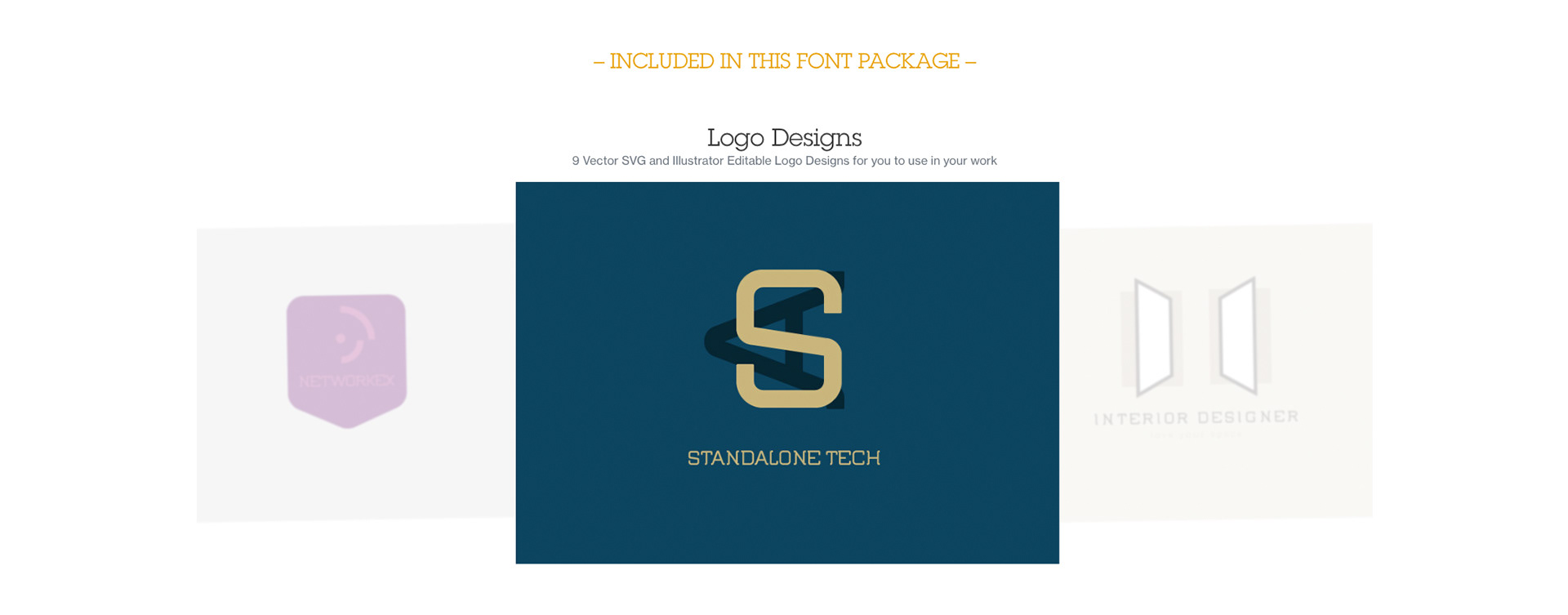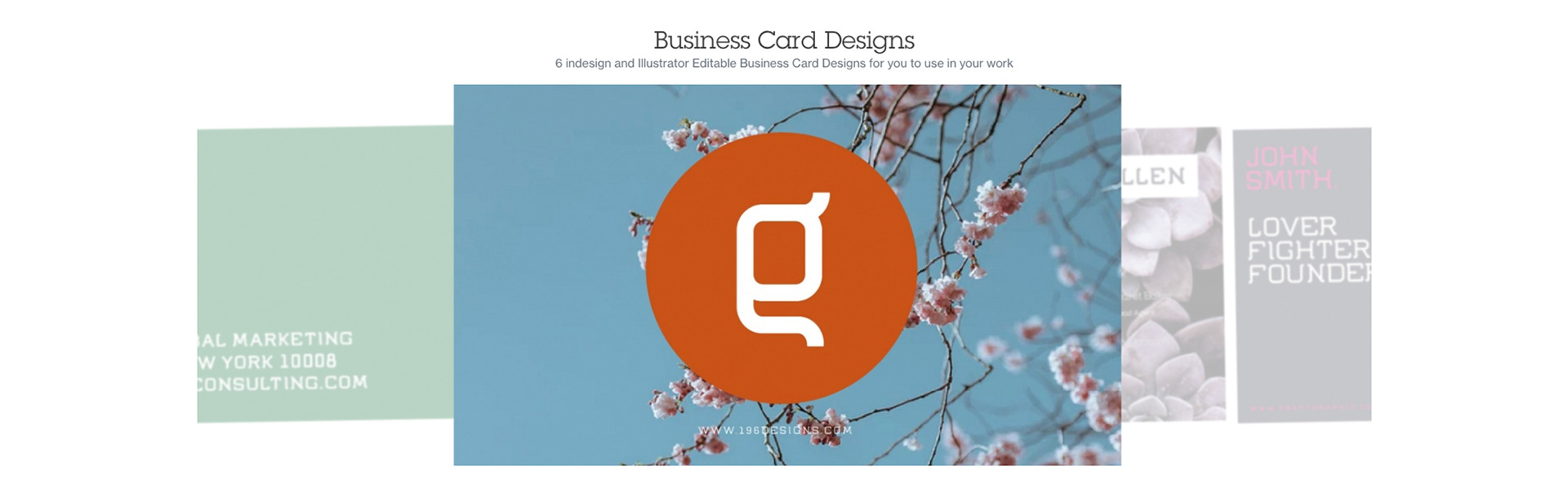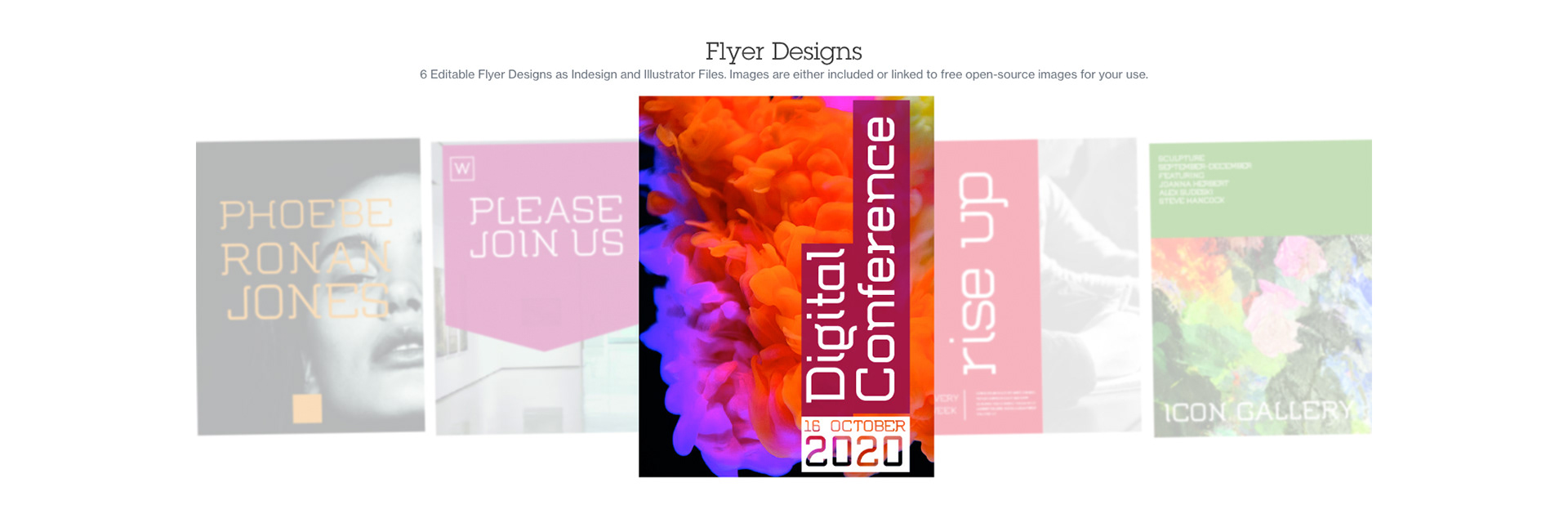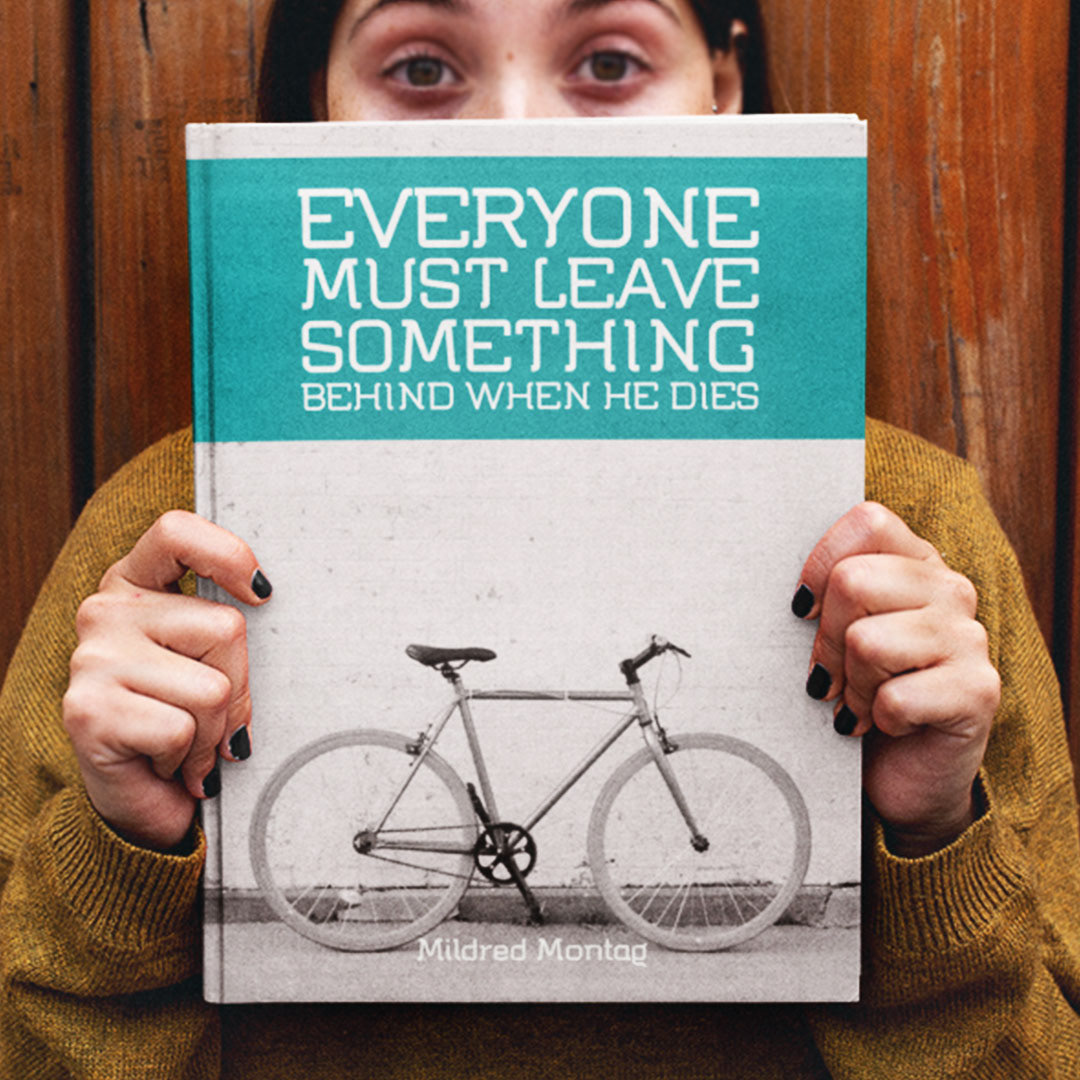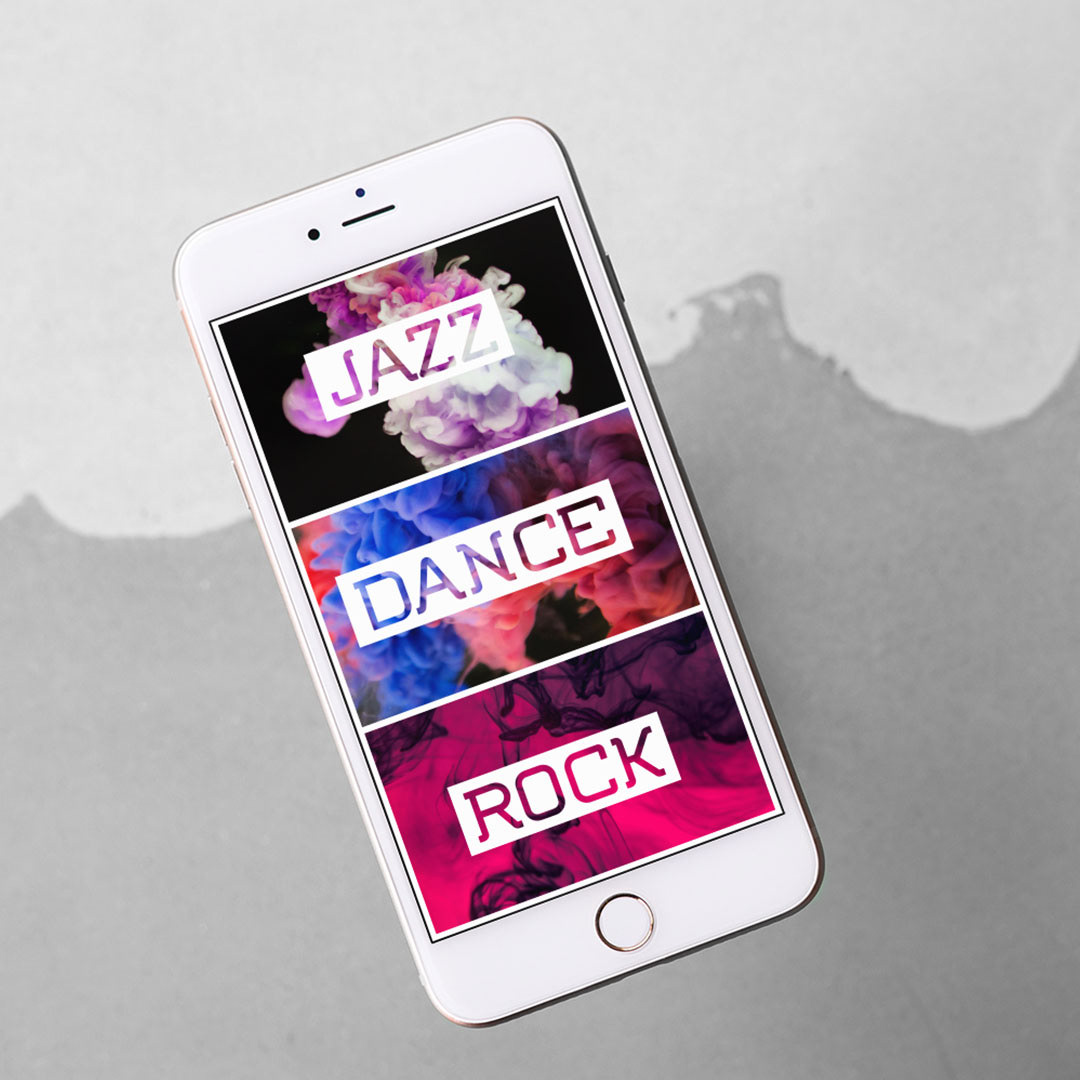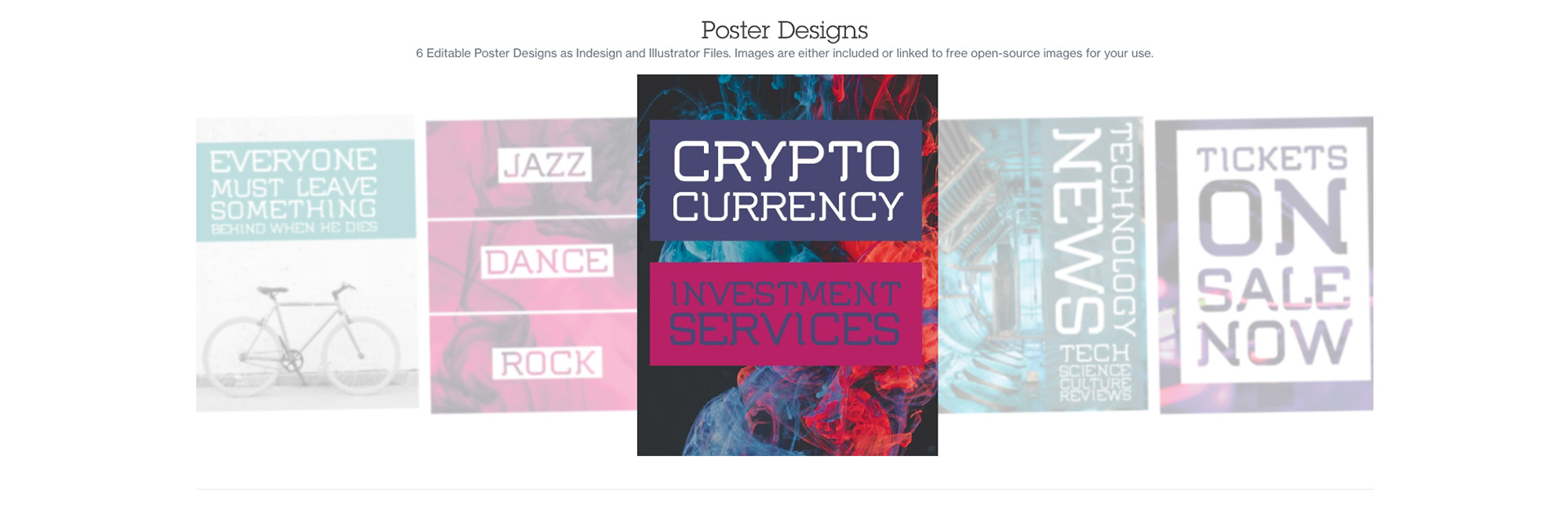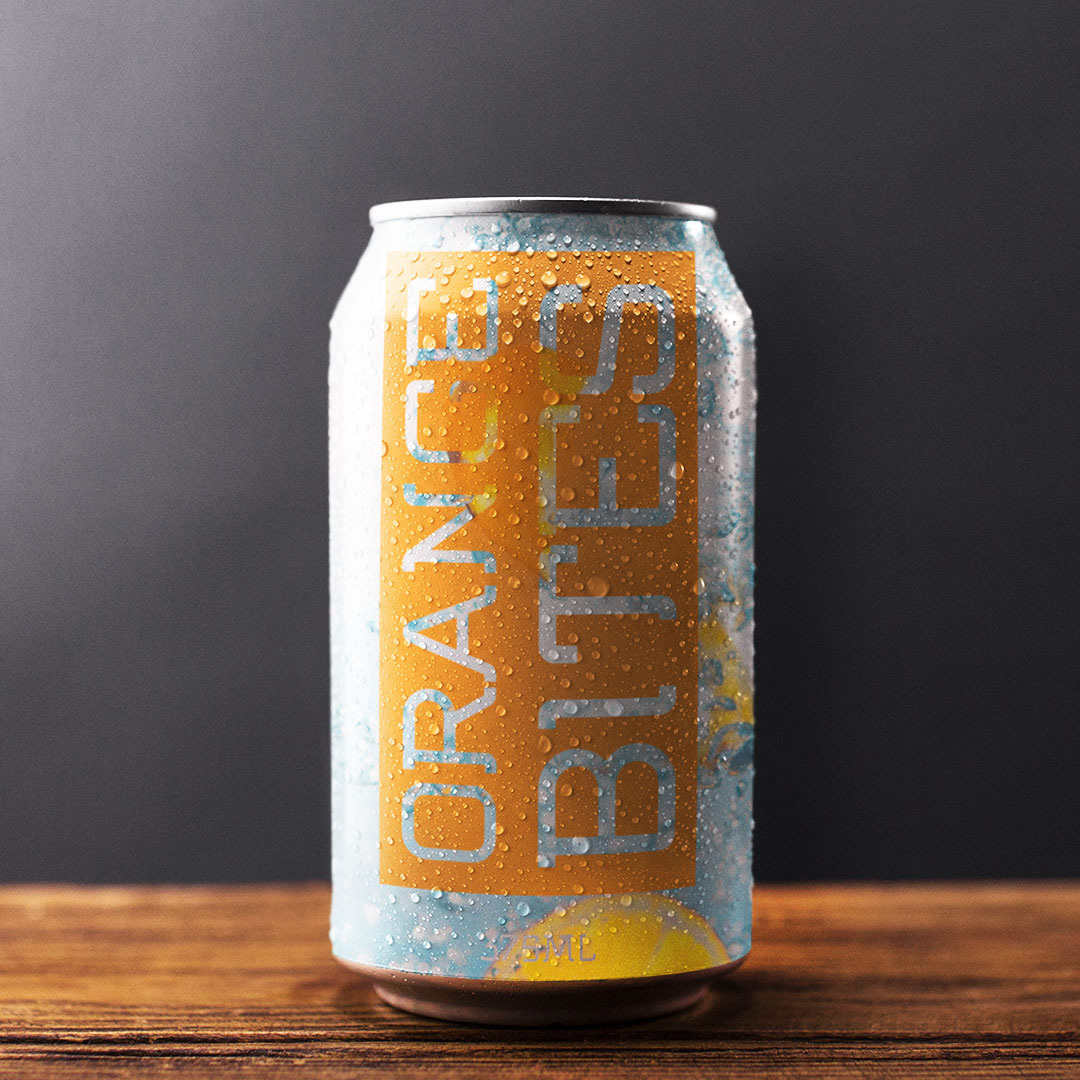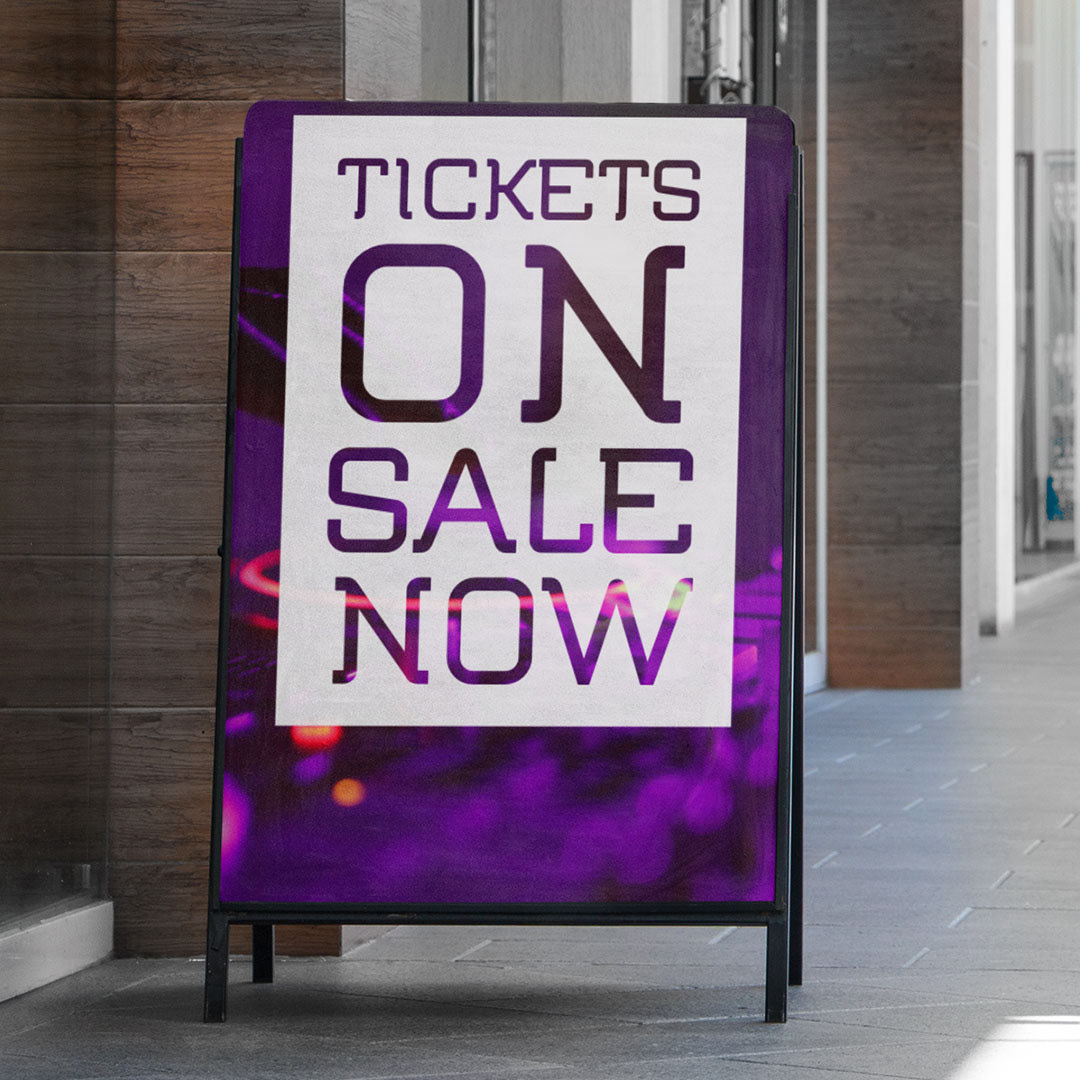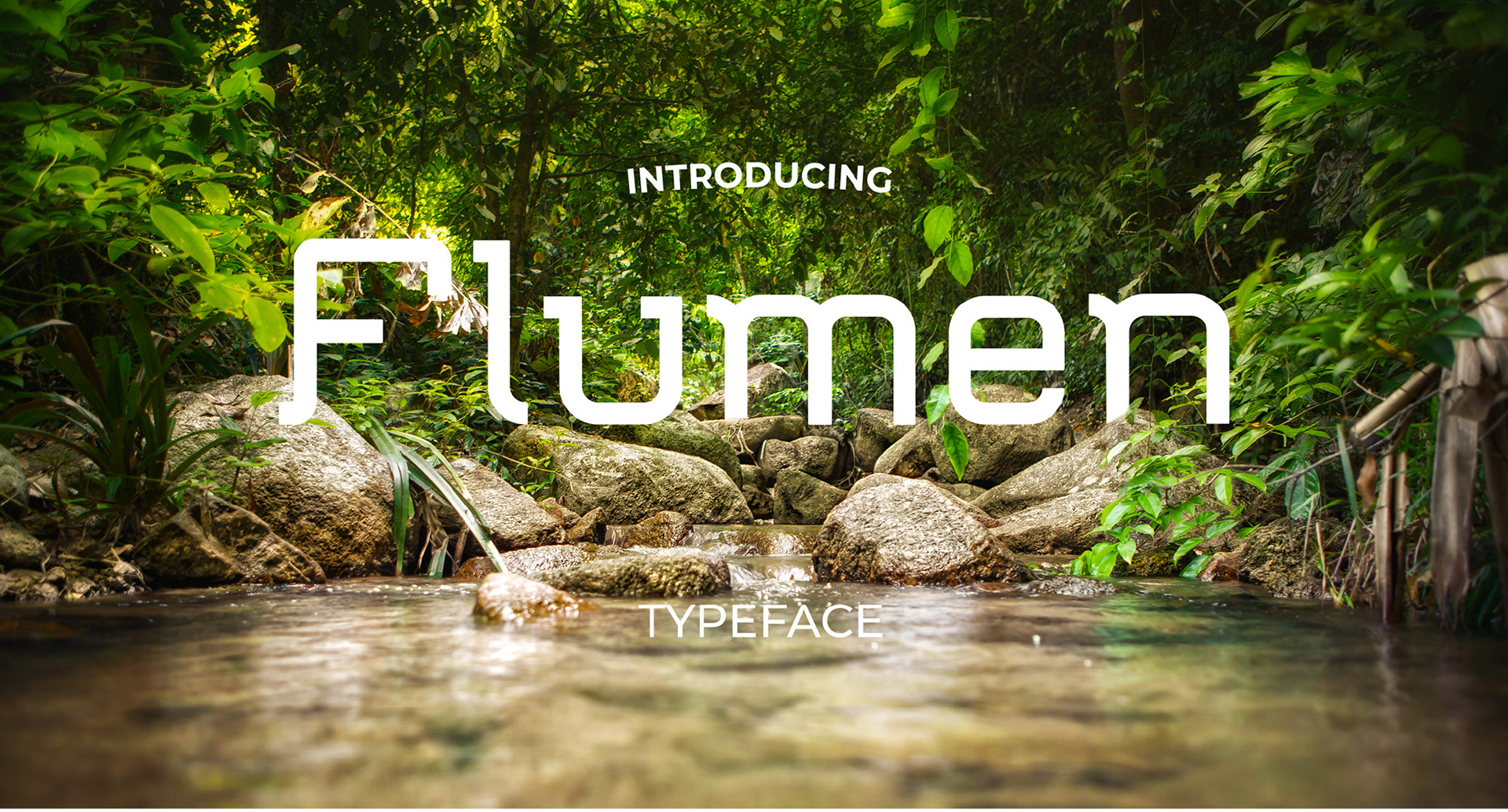
Flumen is a slab serif typeface with a technological and minimalist look for text and headlines. Flumen: meaning to flow in a stream or current, describes the process of creating this font. Born from our work in Branding and Identity design, and the need for a font for a technology company identity, the work grew into a font.
Flumen has open and geometric letter shapes, and overall rounded finishes, whilst the serifs provide an impact, making it strong in headline usage, logos and identities.